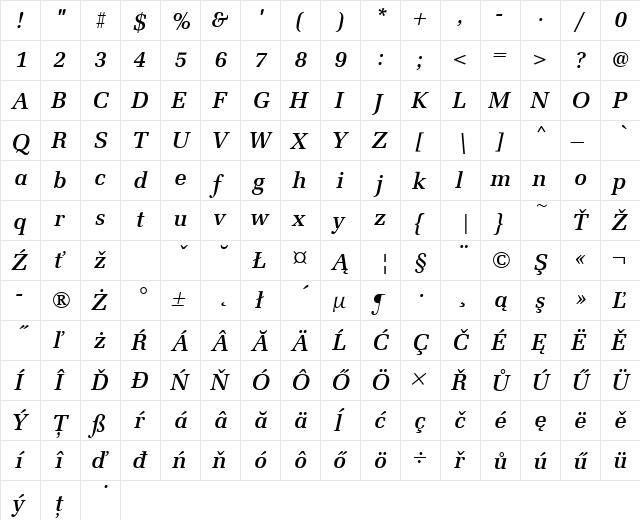
URWLatinoTEEMed Italic Font Preview
URWLatinoTEEMed Italic
Design Context for URWLatinoTEEMed Typeface
URWLatinoTEEMed is a composed and adaptable typeface that performs quietly and consistently across a wide range of design contexts. Its italic angle brings a sense of urgency and motion to the letterforms.
Pro Tip: Use URWLatinoTEEMed for emphasis, pull quotes, and subheadings where its slanted energy can add rhythm to the layout.